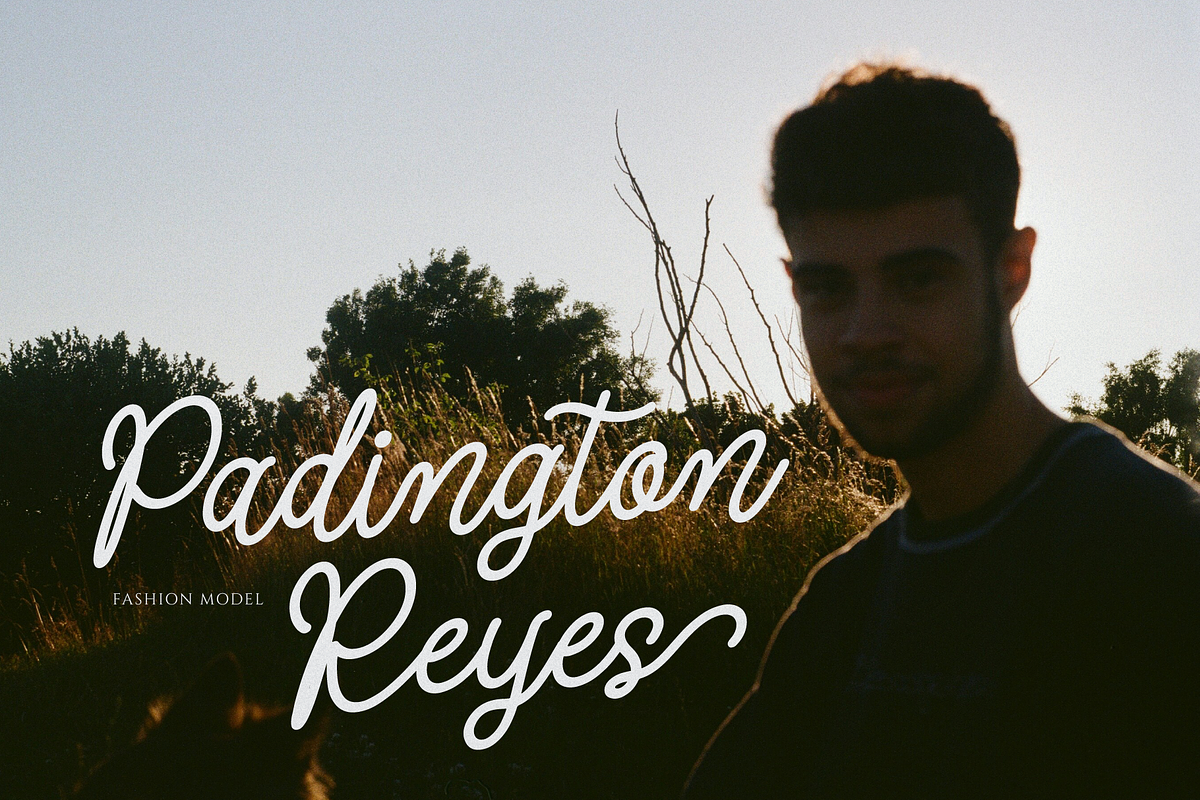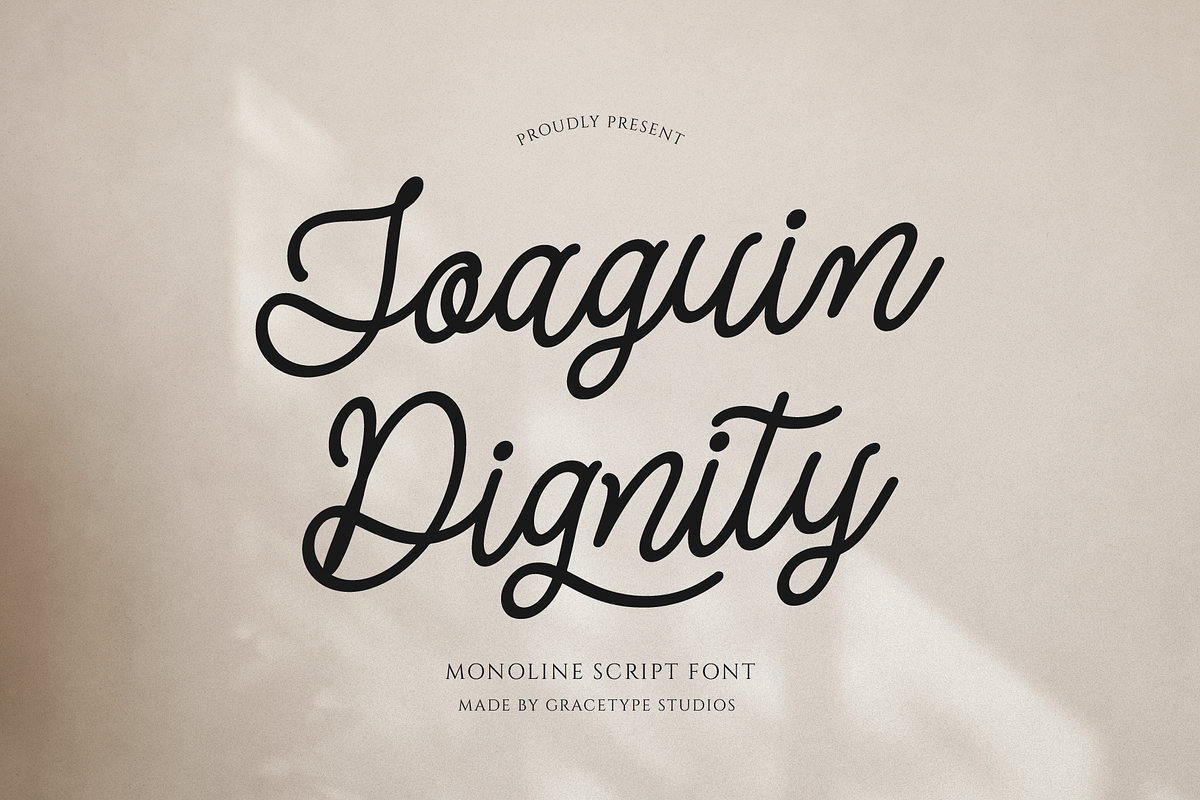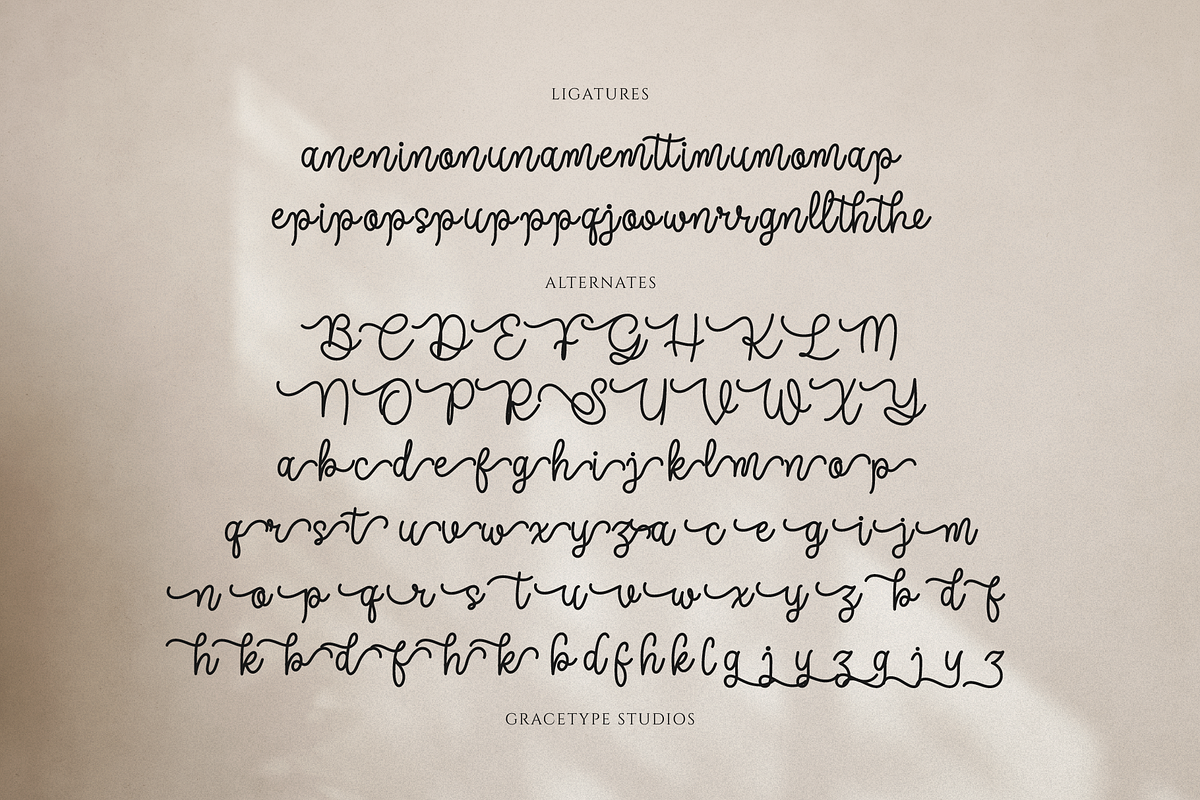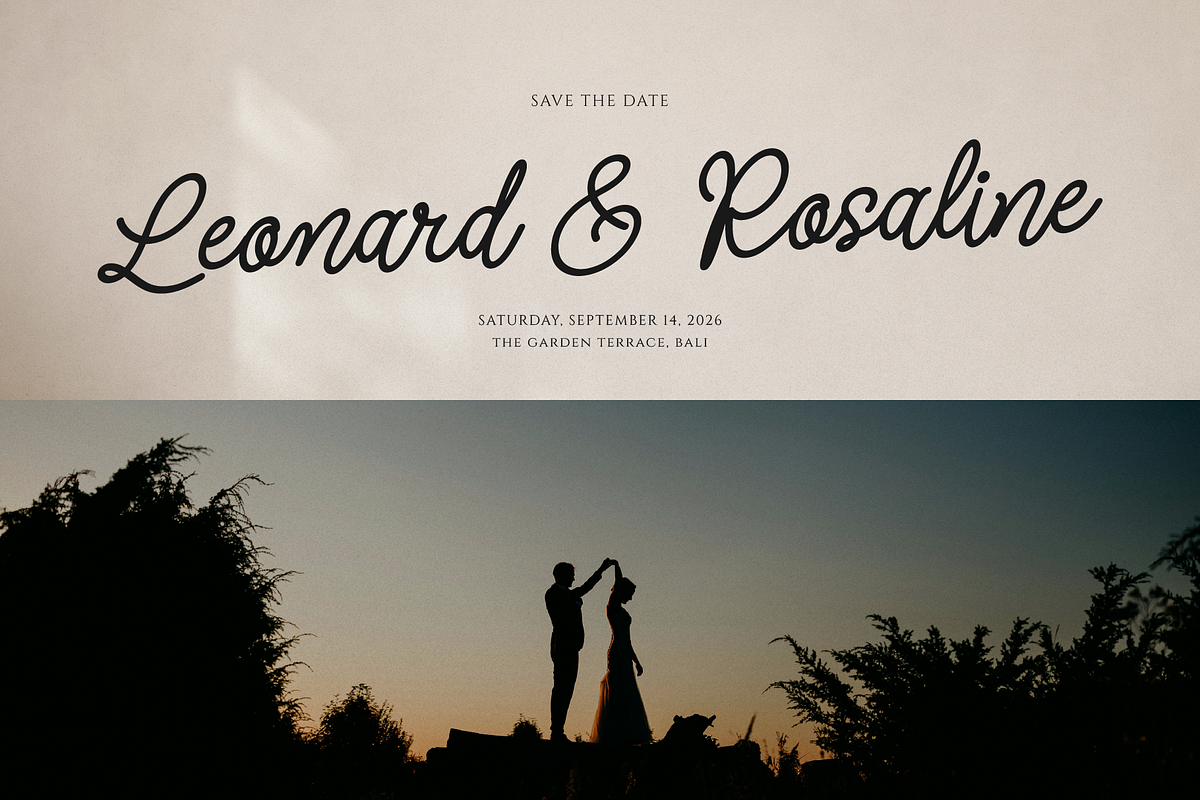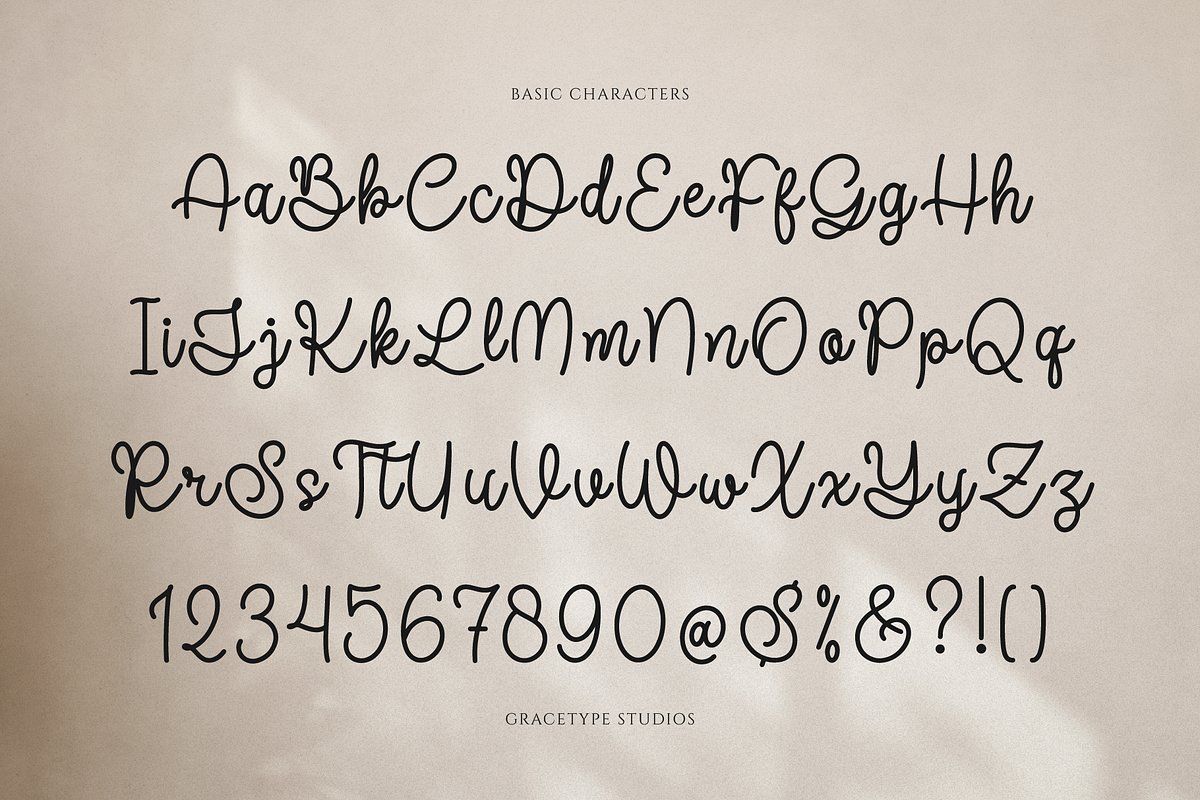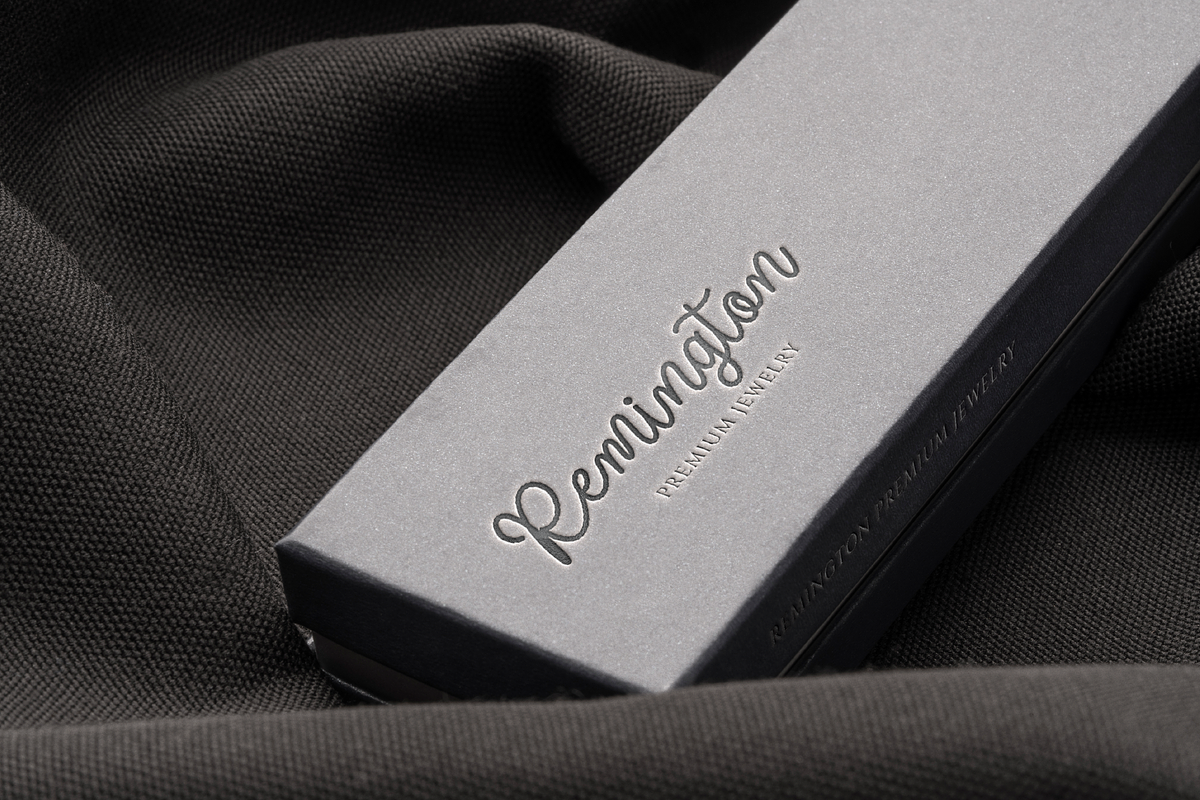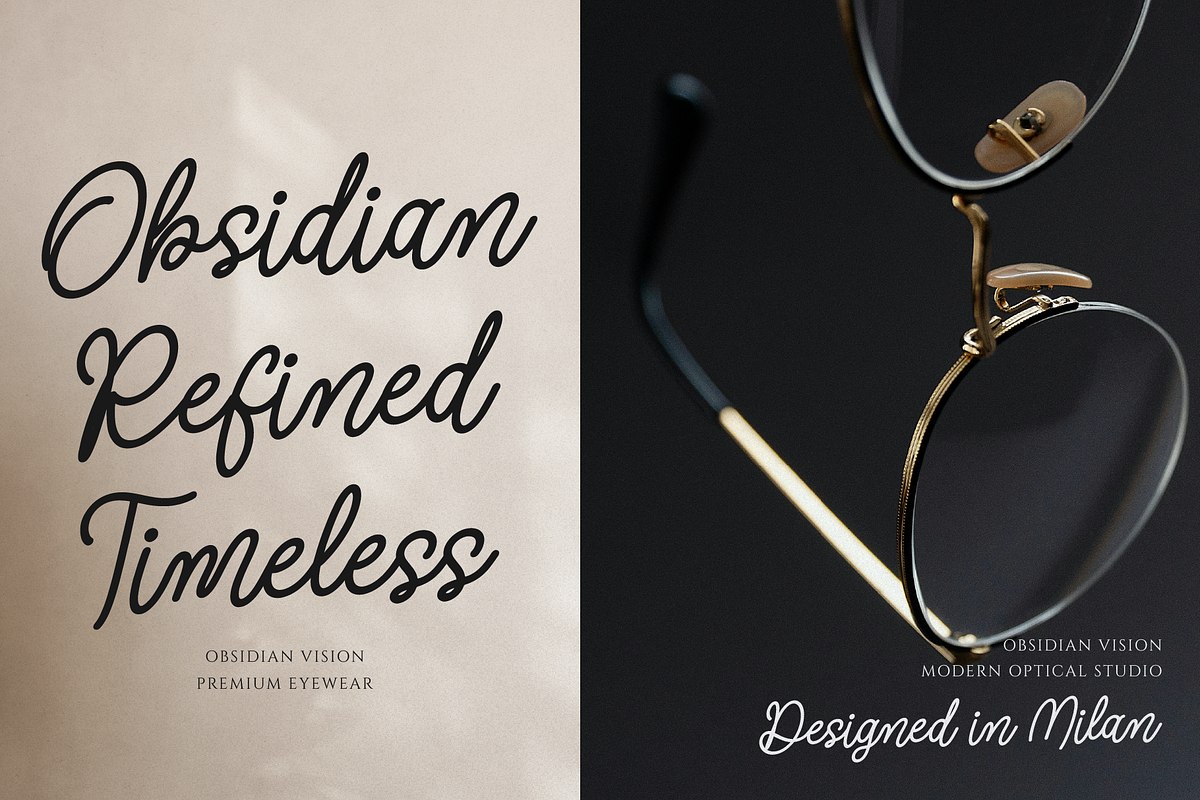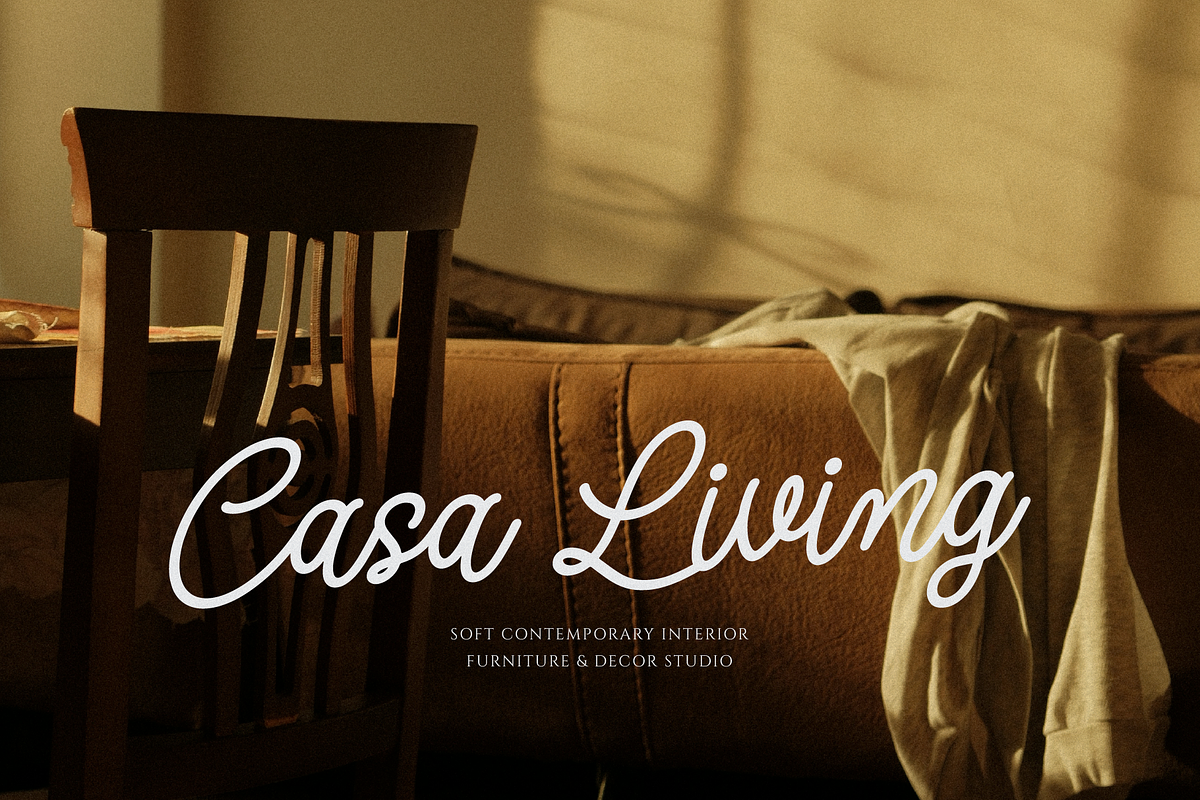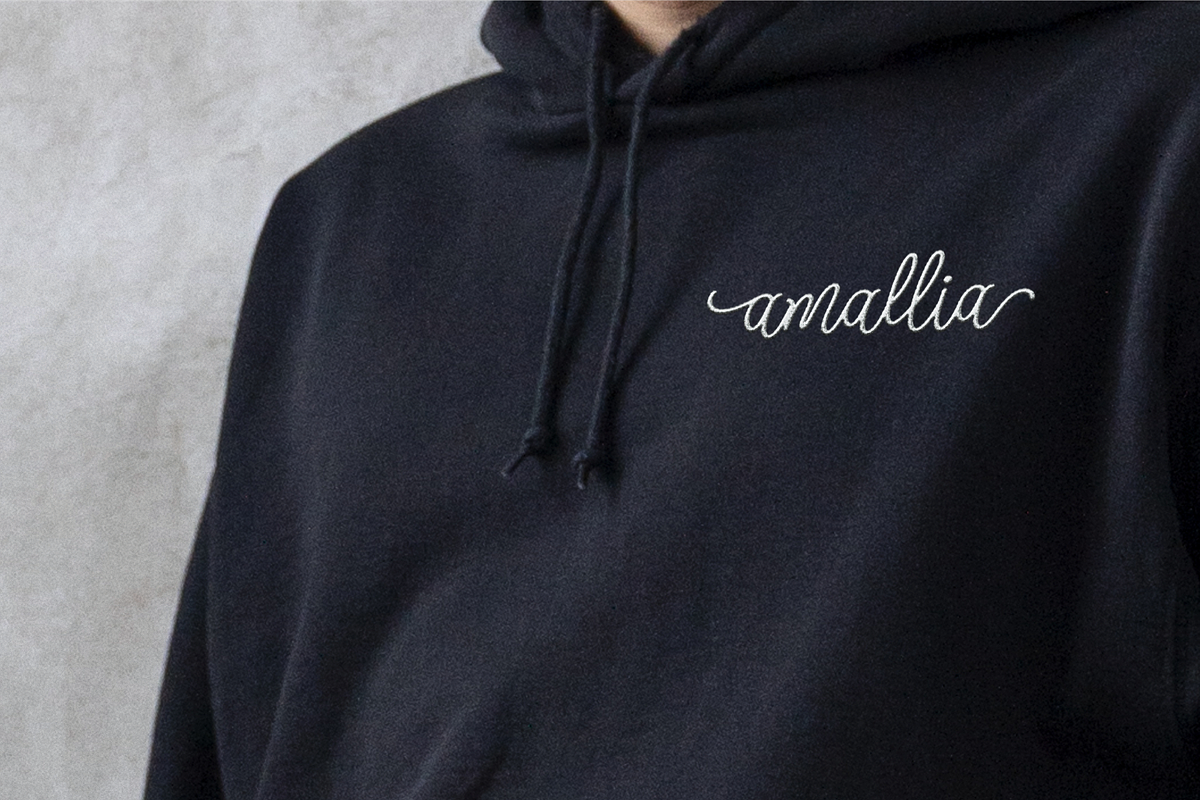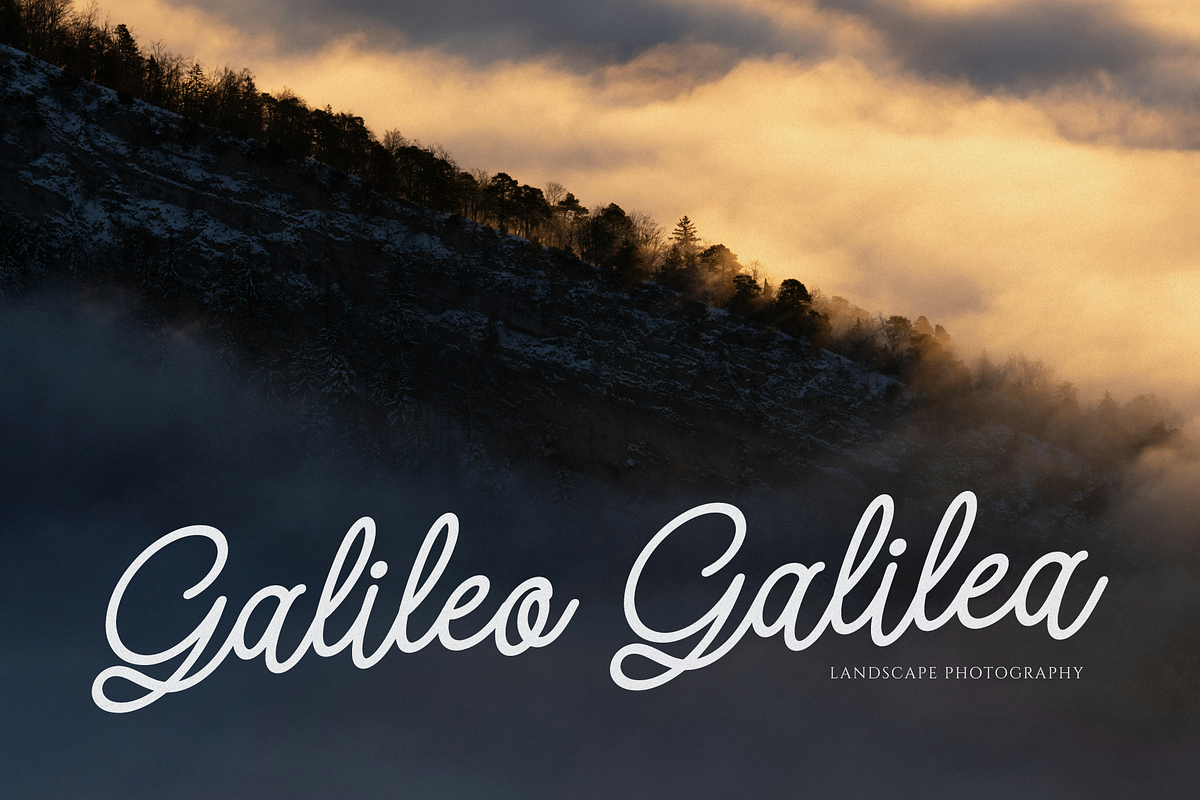
Joaguin Dignity | Monoline Script
Joaguin Dignity | Monoline Script Font, from Gracetypestudio, suitable for any projects such as: logos, branding projects, homeware designs, product packaging, mugs, quotes, posters, shopping bags, t-shirts, book covers, name card, invitation cards, greeting cards, label, photography, watermark, special events, and all your other lovely projects that need a Script taste.
Standard glyphs
Alternate and Ligature